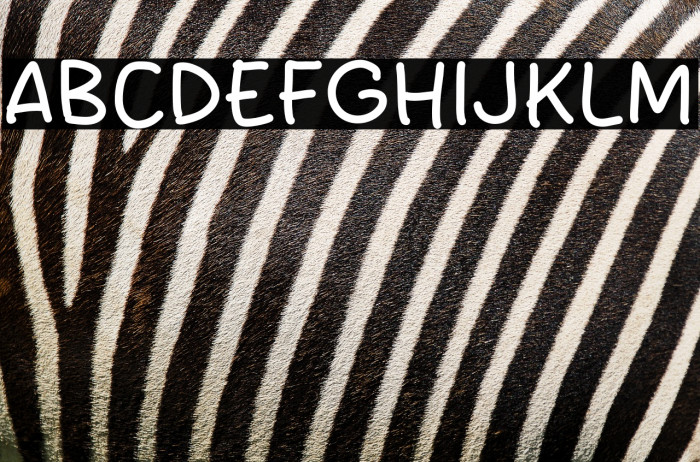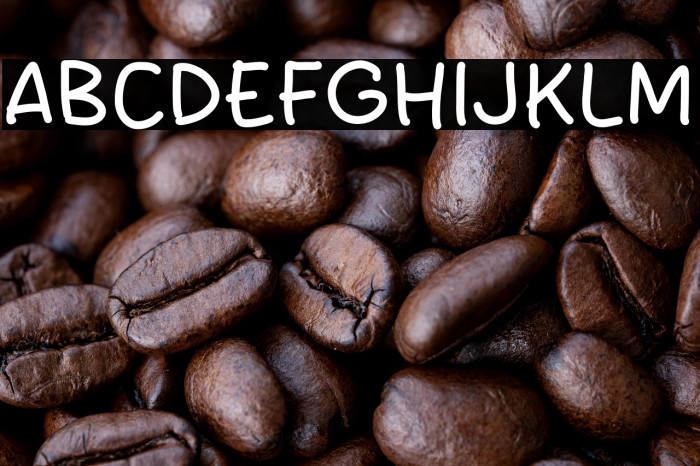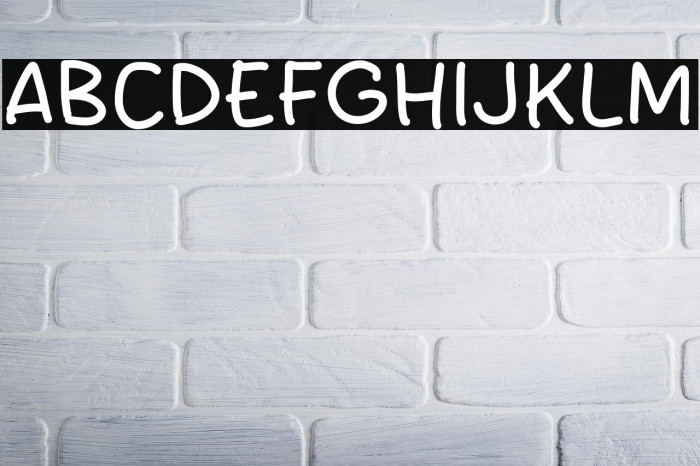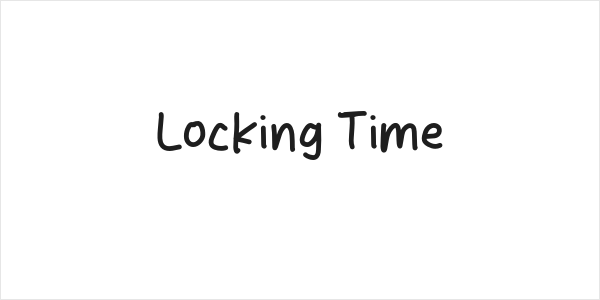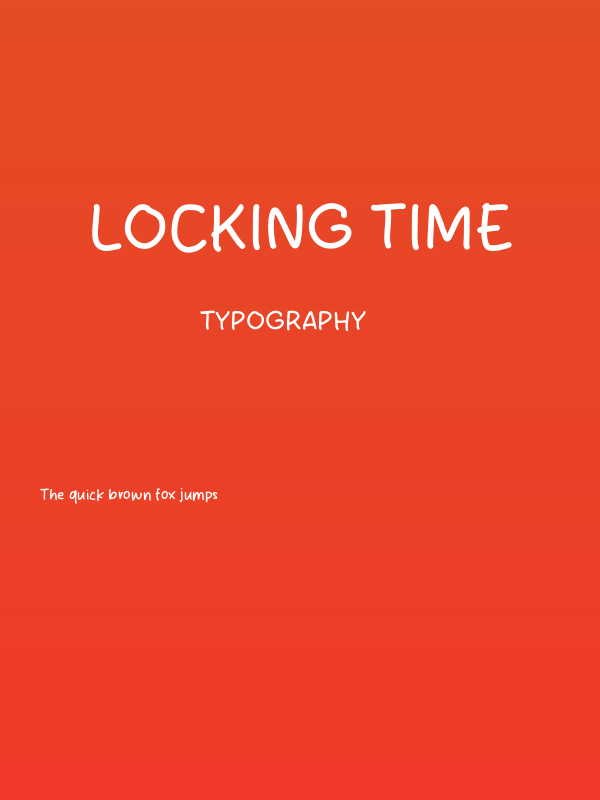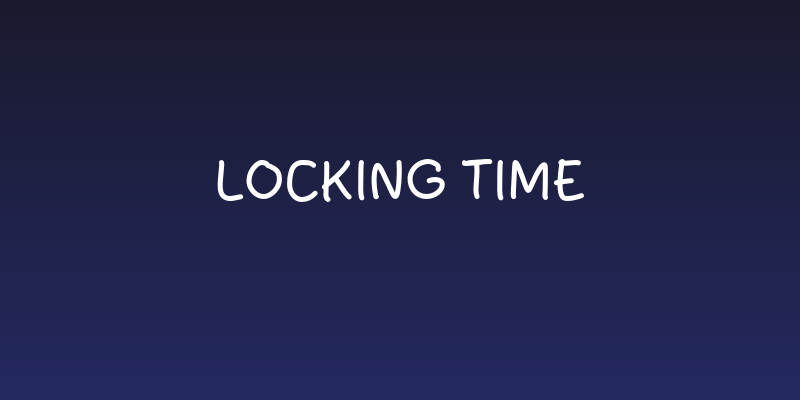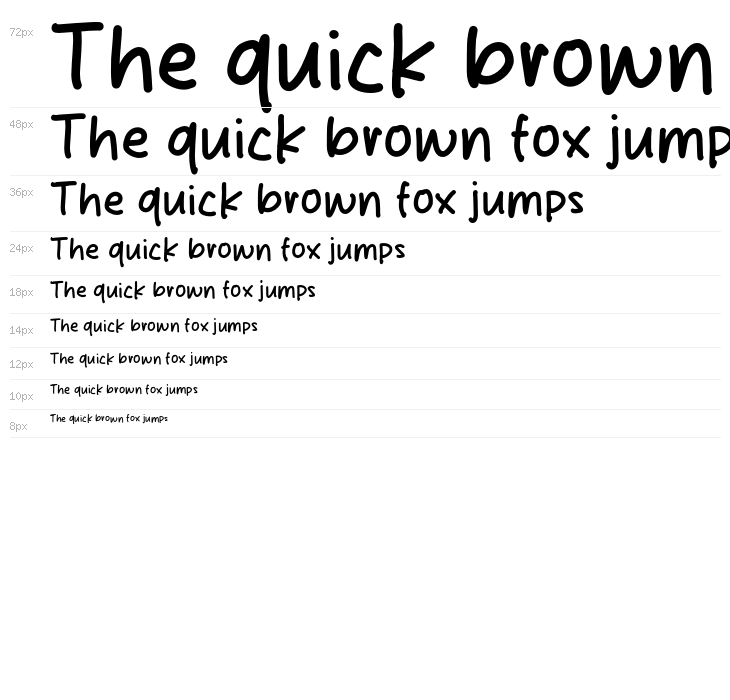
Locking Time Font
Locking Time Description
A playful, handwritten font with a casual and friendly appearance, featuring rounded edges and consistent stroke width.
| Overall Style | Casual |
| Use Case | Informal text, playful designs. |
| Proposed Projects | Greeting cards, children's books, informal invitations. |